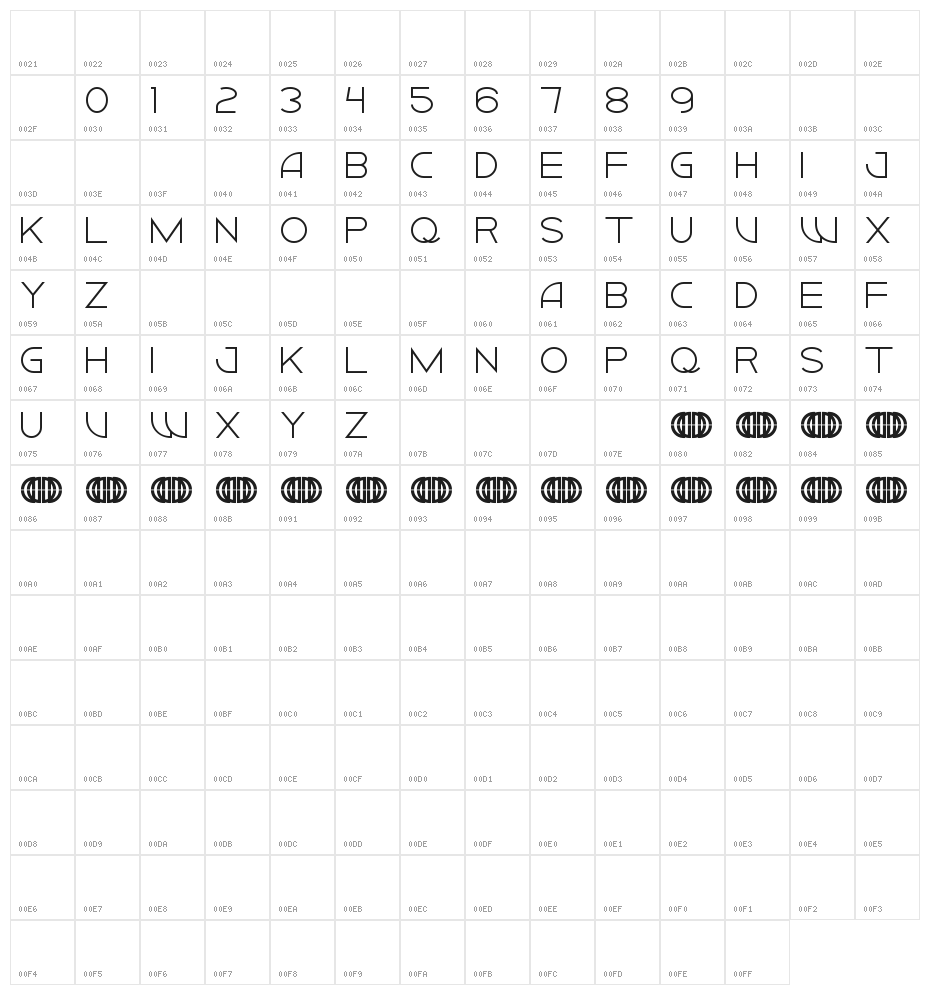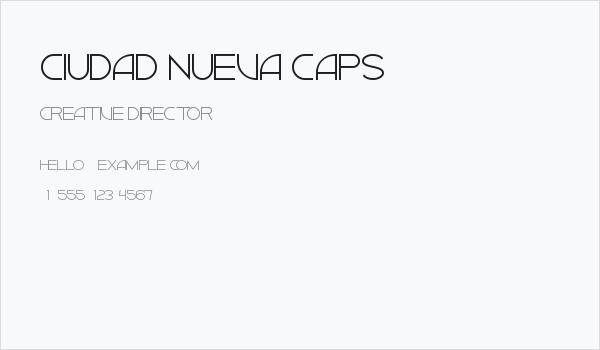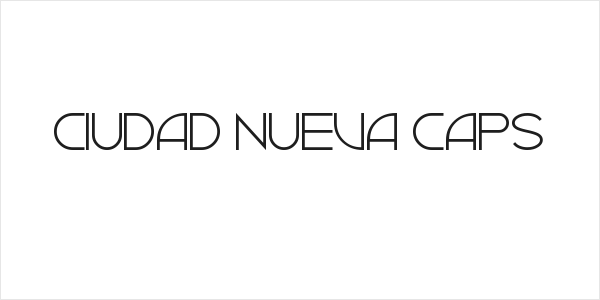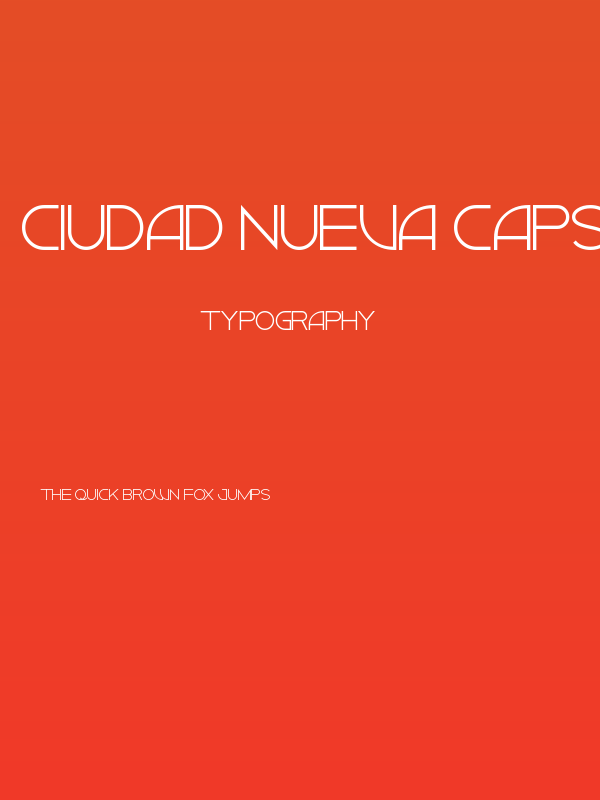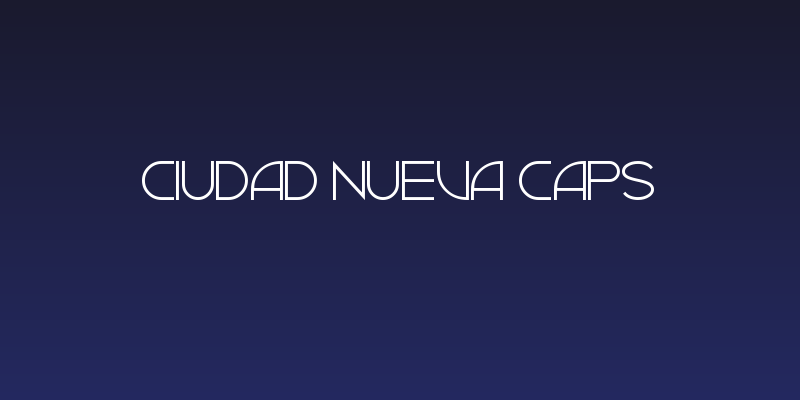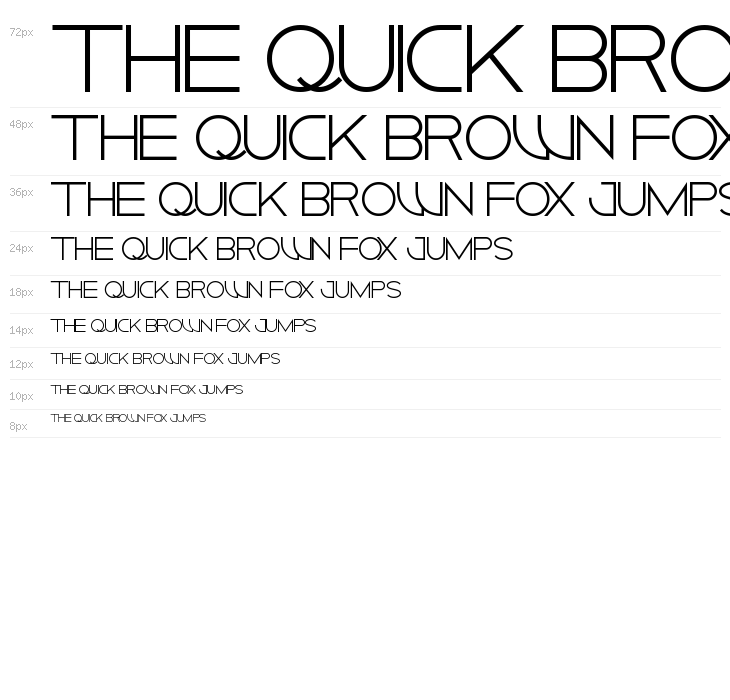
Ciudad Nueva CAPS Font
Ciudad Nueva CAPS Description
This font features a modern, geometric design with clean lines and a minimalist aesthetic. The characters are constructed with a uniform stroke width, creating a harmonious and balanced appearance. The uppercase letters exhibit a unique blend of sharp angles and smooth curves, giving the font a futuristic feel. The numerals are equally distinctive, maintaining the geometric theme with a consistent style. This font is well-suited for projects that require a contemporary and sleek look, making it ideal for branding, advertising, and digital media.
| Use Case | Logos, Headlines, Digital Media |
| Proposed Projects | Ideal for branding, advertising, digital media, and any project requiring a contemporary look. |